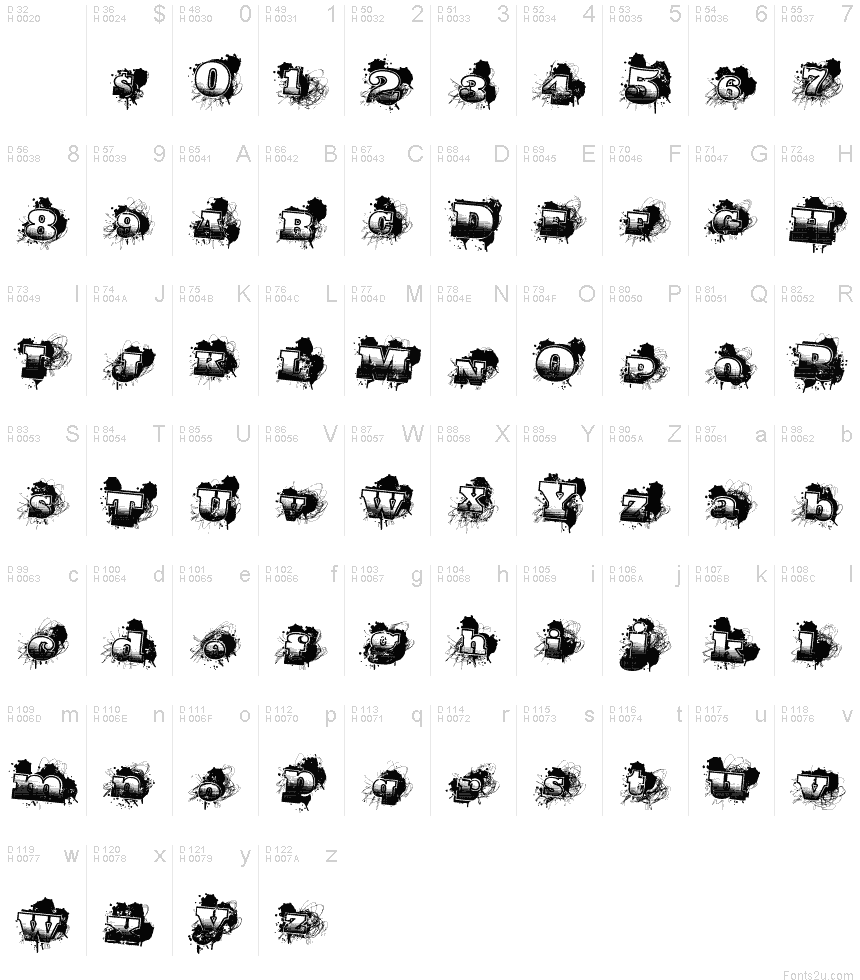
City Tags by Xerographer Fonts is a free distorted display font with hefty slab-like letters, layered outlines, and the busy marks of graffiti and street graphics. Halftone shading darkens the lower halves, while ink splashes and looping scribbles break across the edges and turn each word into a rough, assembled image.
Posters are its clearest medium, followed by music merchandise and event graphics. In editorial design, it can supply the raw title treatment for features on street art or underground culture.